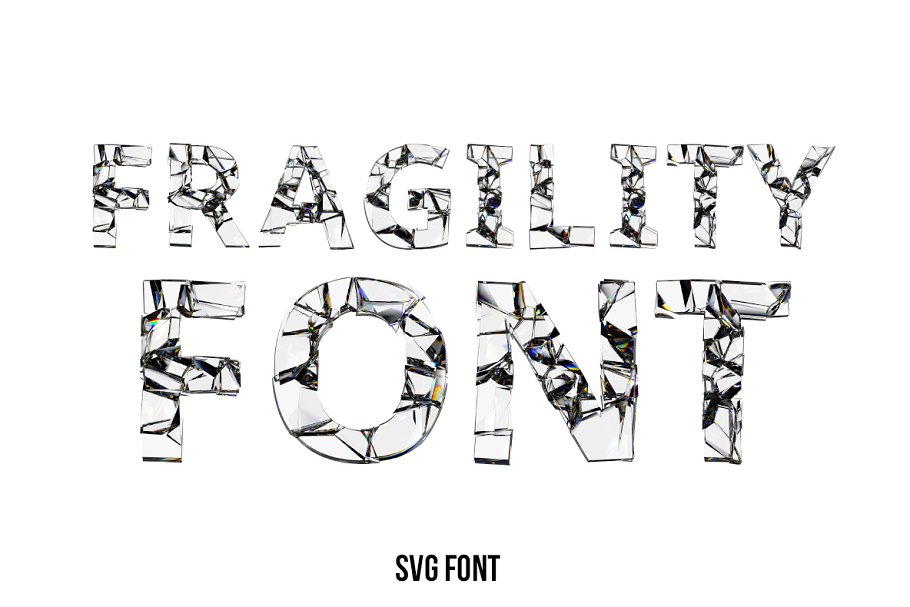
Introducing Fragility Font, a captivating and versatile addition to your font collection! Created by the talented Vladimir Loginov, this font is not only visually stunning but also packed with features that will enhance your designs.
One of the unique aspects of Fragility Font is its color OpenType file format. This means that the font will only appear in apps that support color bitmap fonts. With compatibility in popular software like Photoshop CC 2017, Illustrator CC 2018, and Procreate 4.3 (or newer), you can easily unlock its full potential.
As OpenType-SVG becomes the industry standard, now is the perfect time to explore the world of color fonts. Fragility Font allows you to unleash your creativity across various software and hardware, including Photoshop, Illustrator, InDesign, QuarkXPress, Keynote, PowerPoint, and Word. Say goodbye to boring black and white fonts and welcome a vibrant and expressive typography experience.
For those who prefer more flexibility, Fragility Font also provides individual .png files for each character. This means that you can use any graphics software to create your desired text layout. With high-resolution images measuring 3000x3000px, the quality of your designs will remain impeccable.
The Fragility SVG Font takes this font to another level with its stunning 3D built-in effect. Featuring uppercase characters, numerals, and basic punctuation, this font is perfect for adding an extra touch of sophistication to your projects. Its draw height of approximately 800 pixels ensures that every detail is beautifully showcased.
Please note that due to the size of OpenType-SVG fonts, extended punctuation and language support are not included in the font files. However, we have included individual image files for punctuation characters and accents in the .png letter set. Simply add them manually to your text to achieve the desired effect.